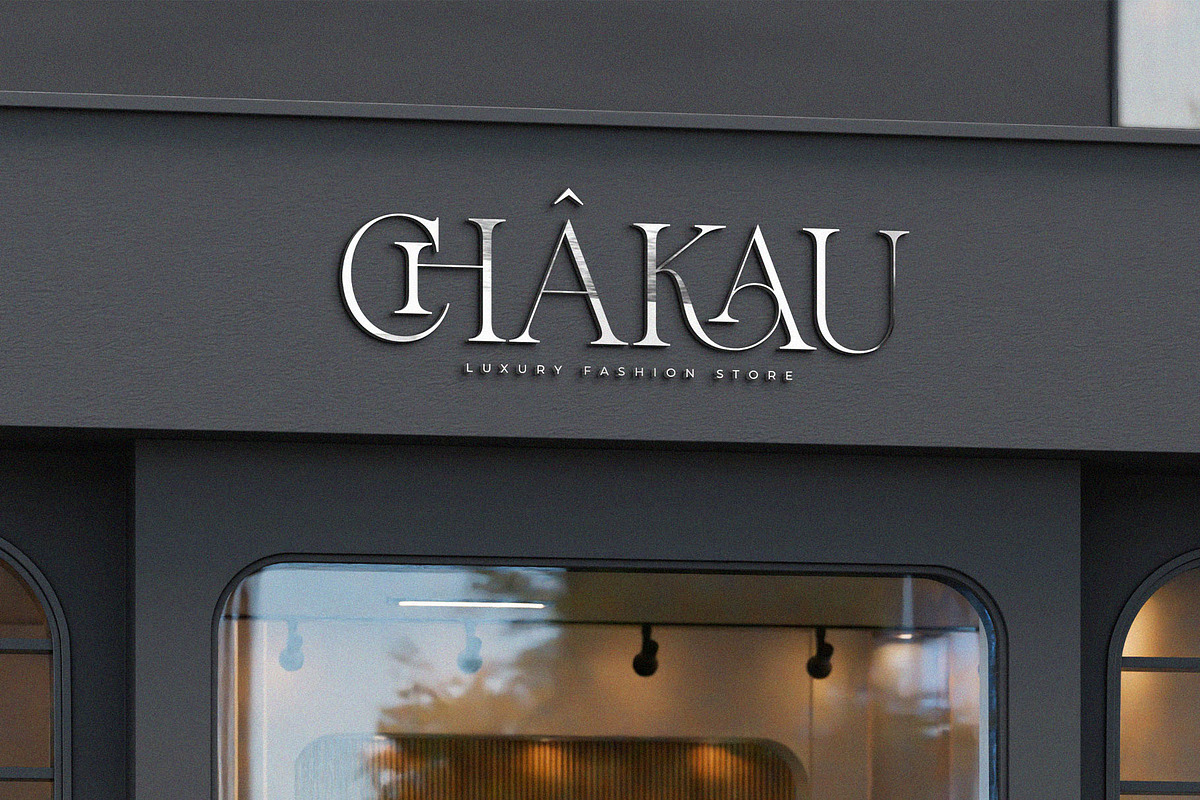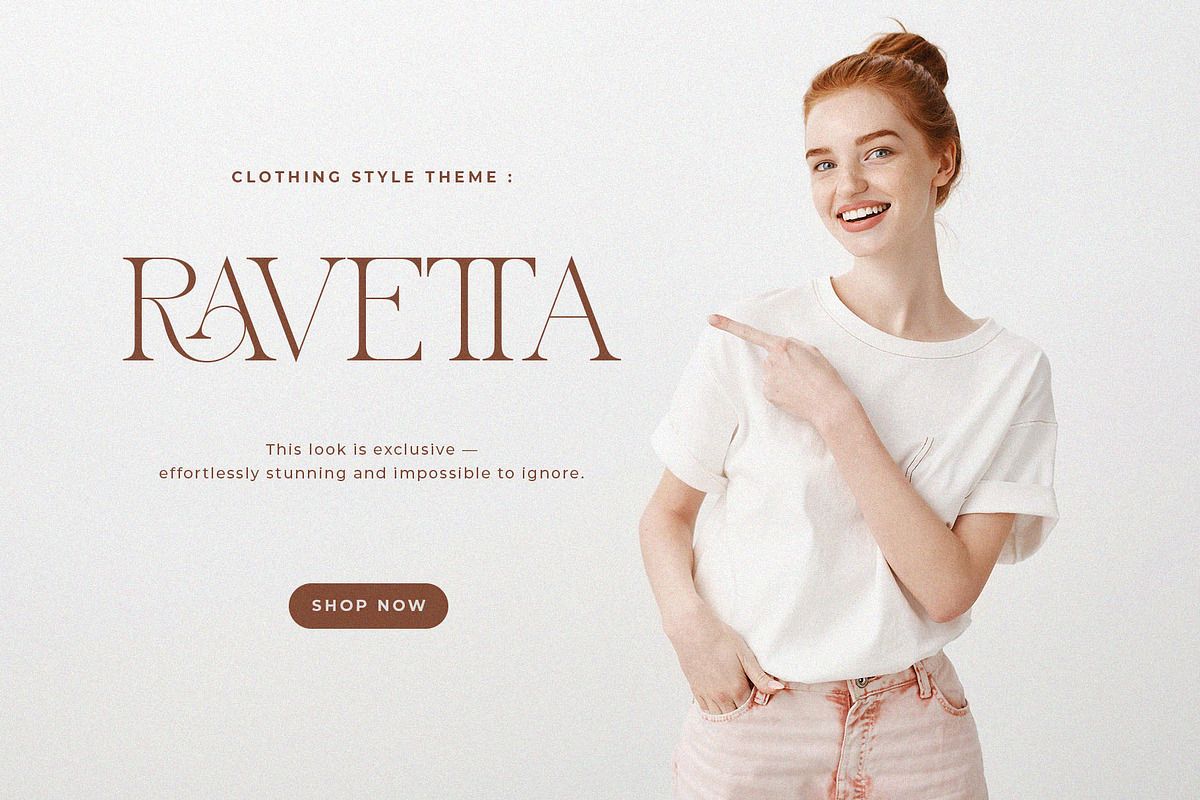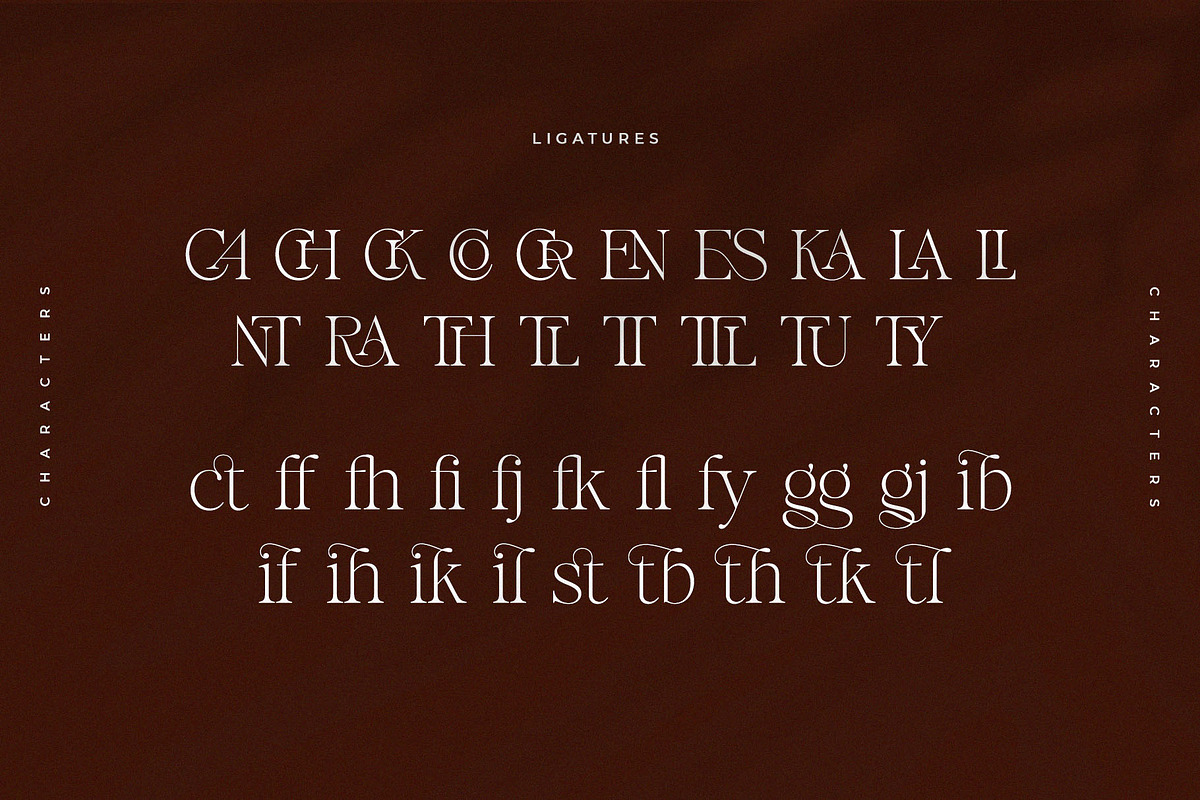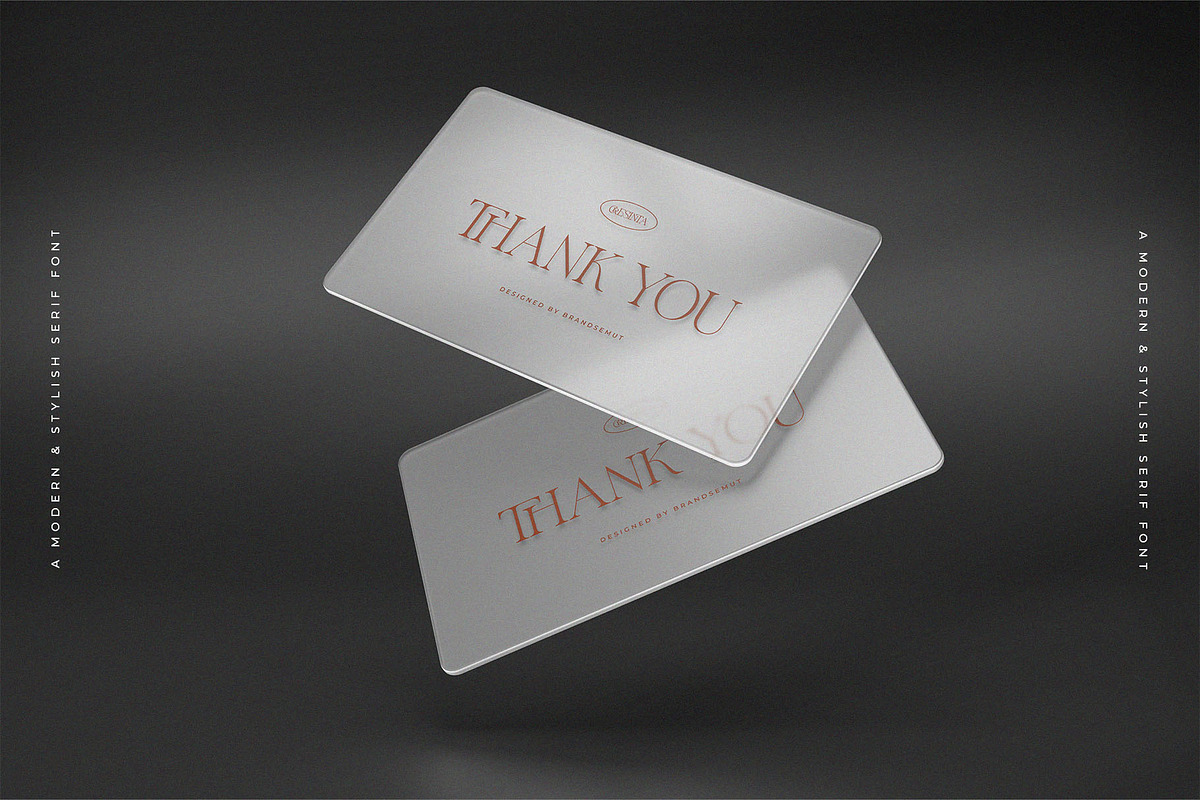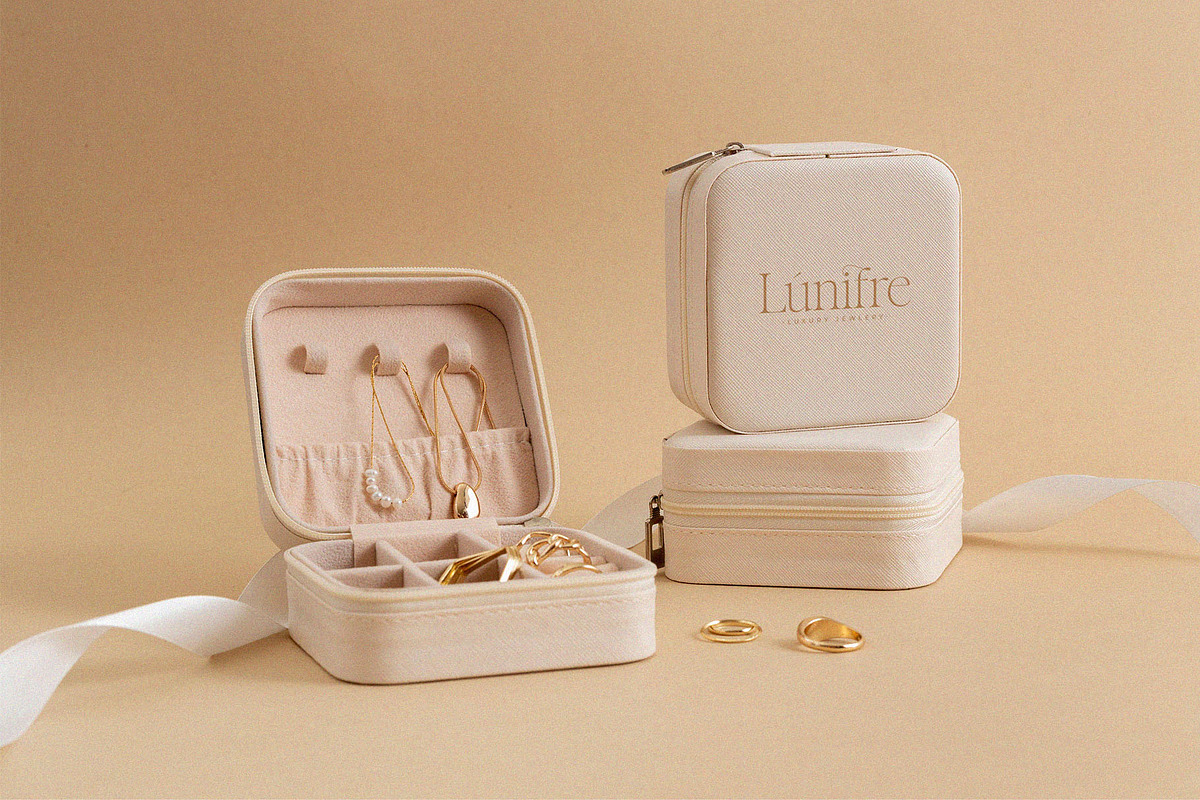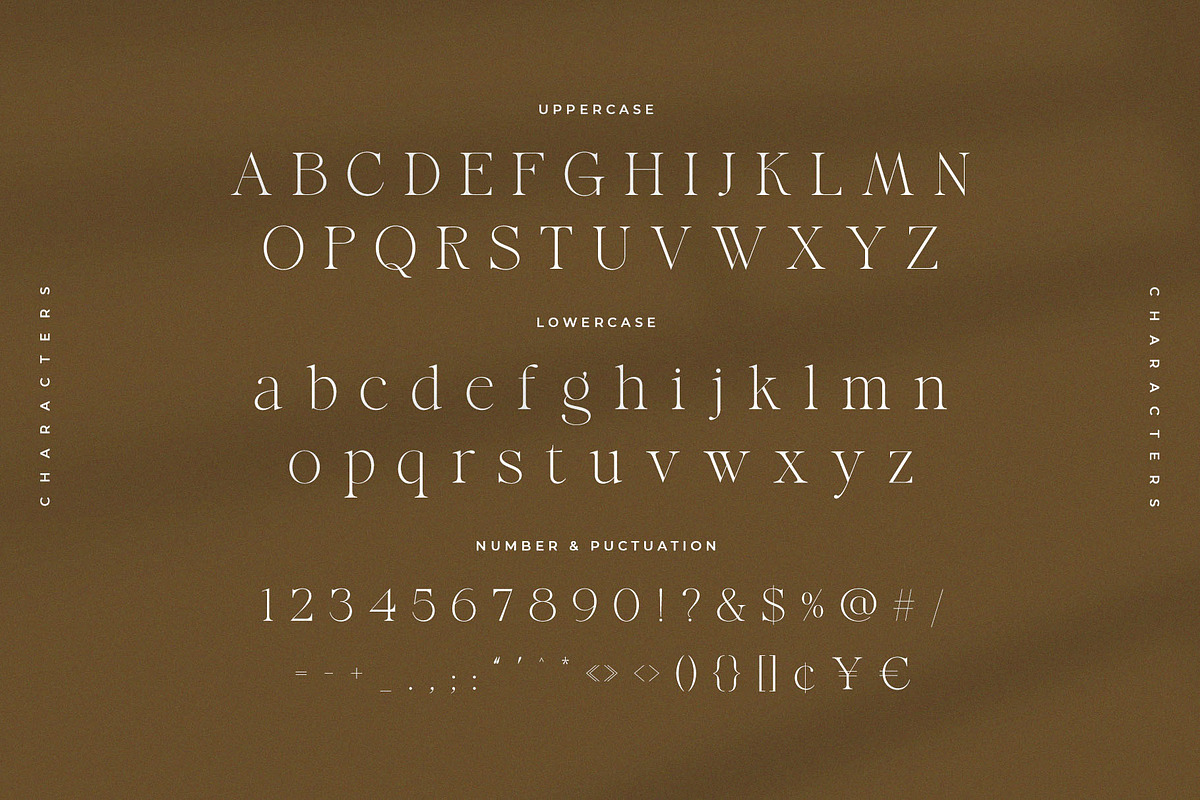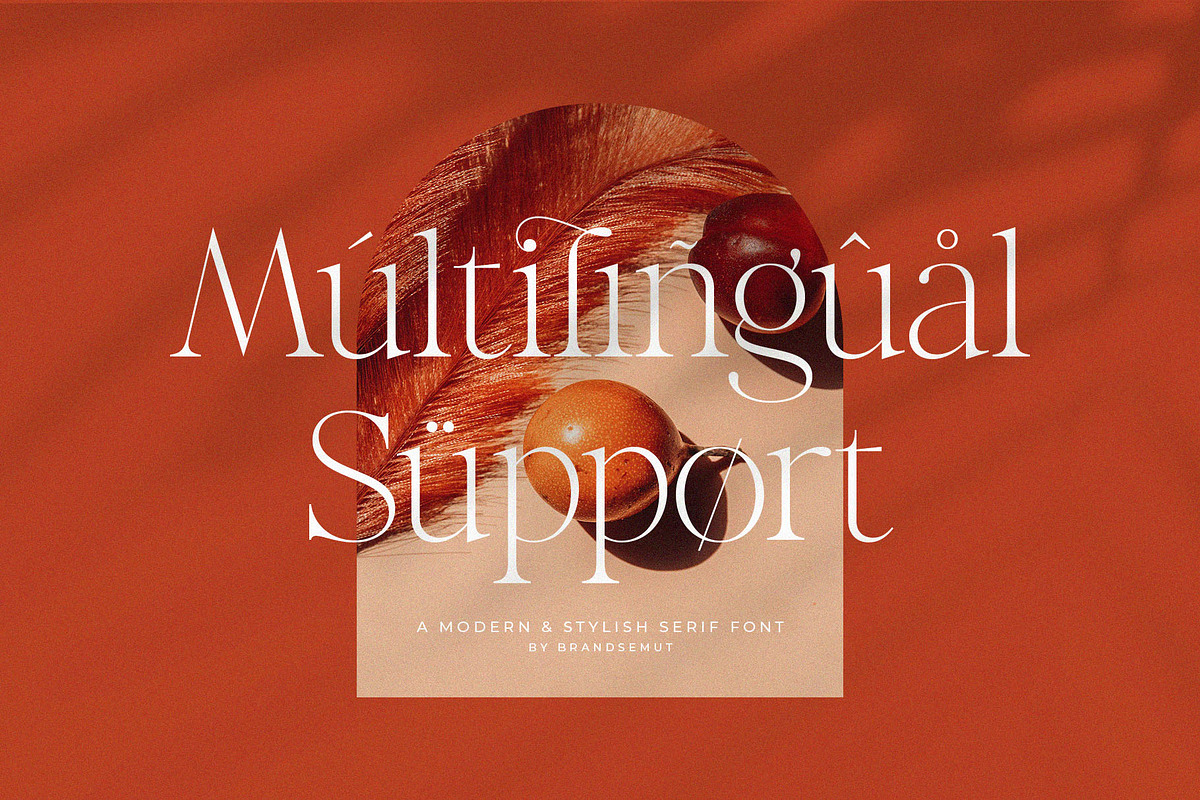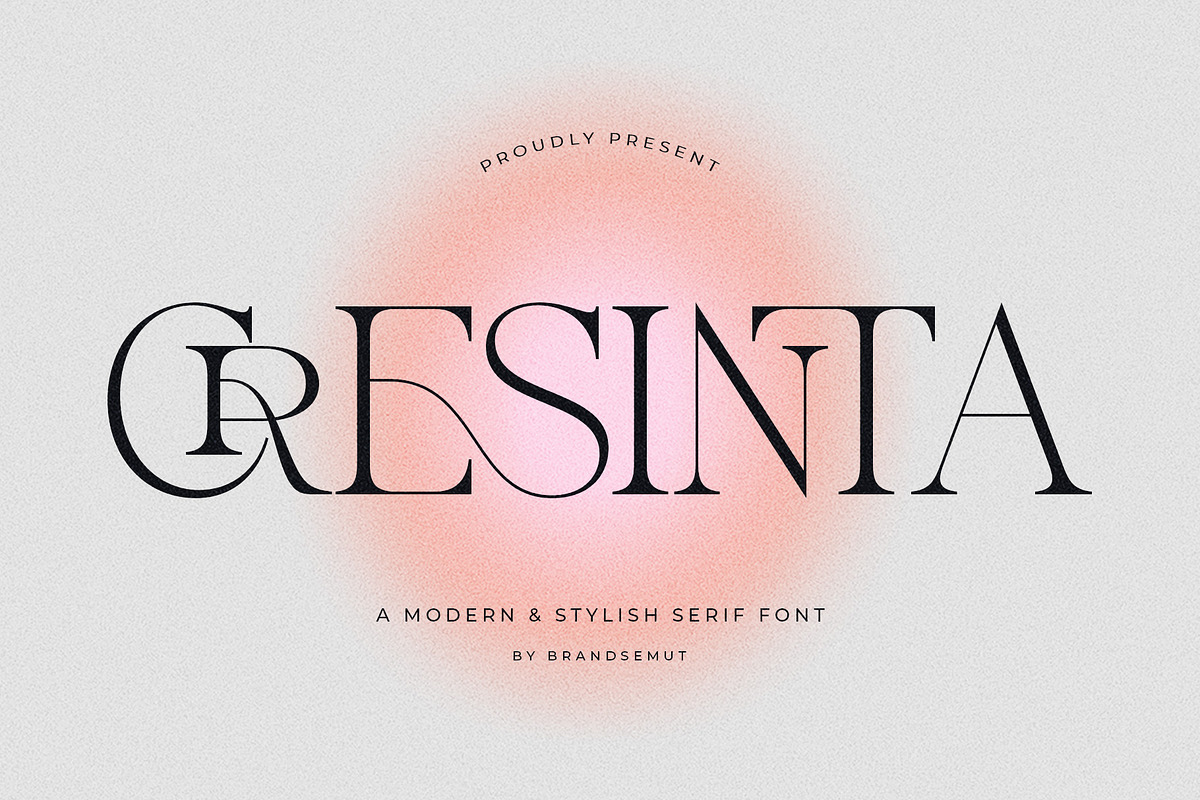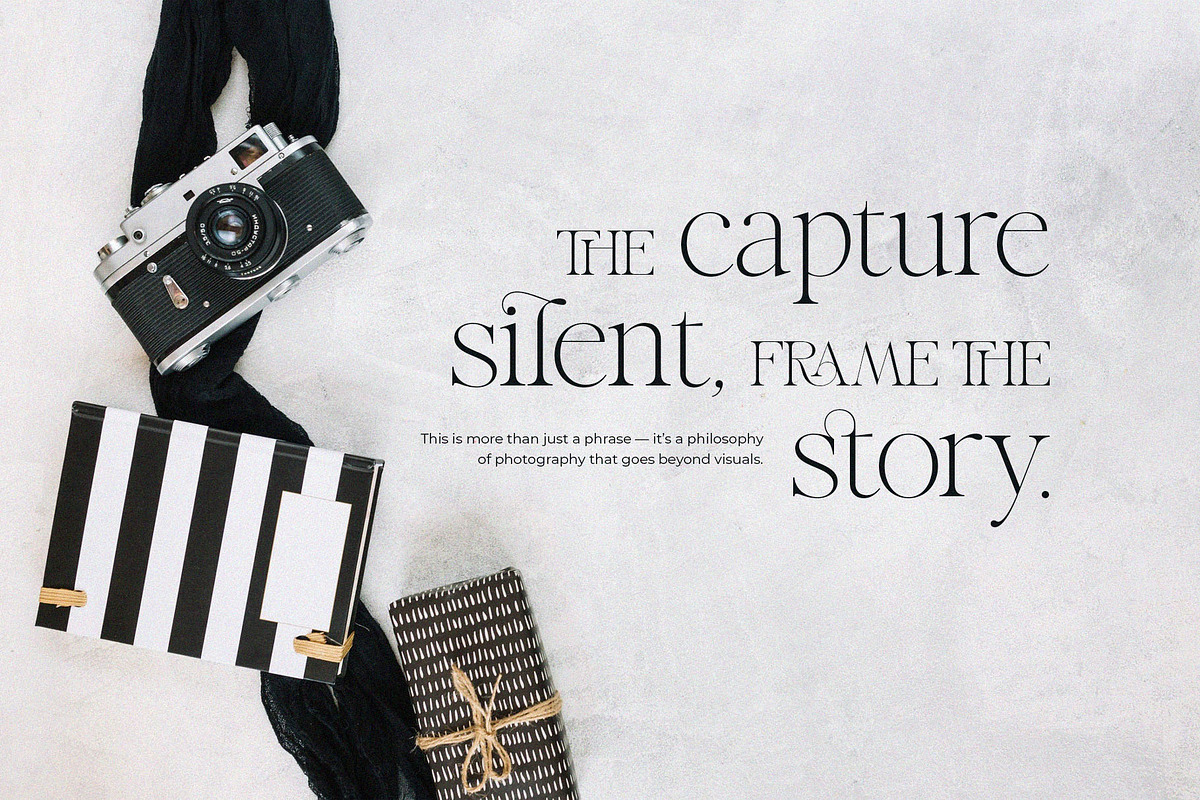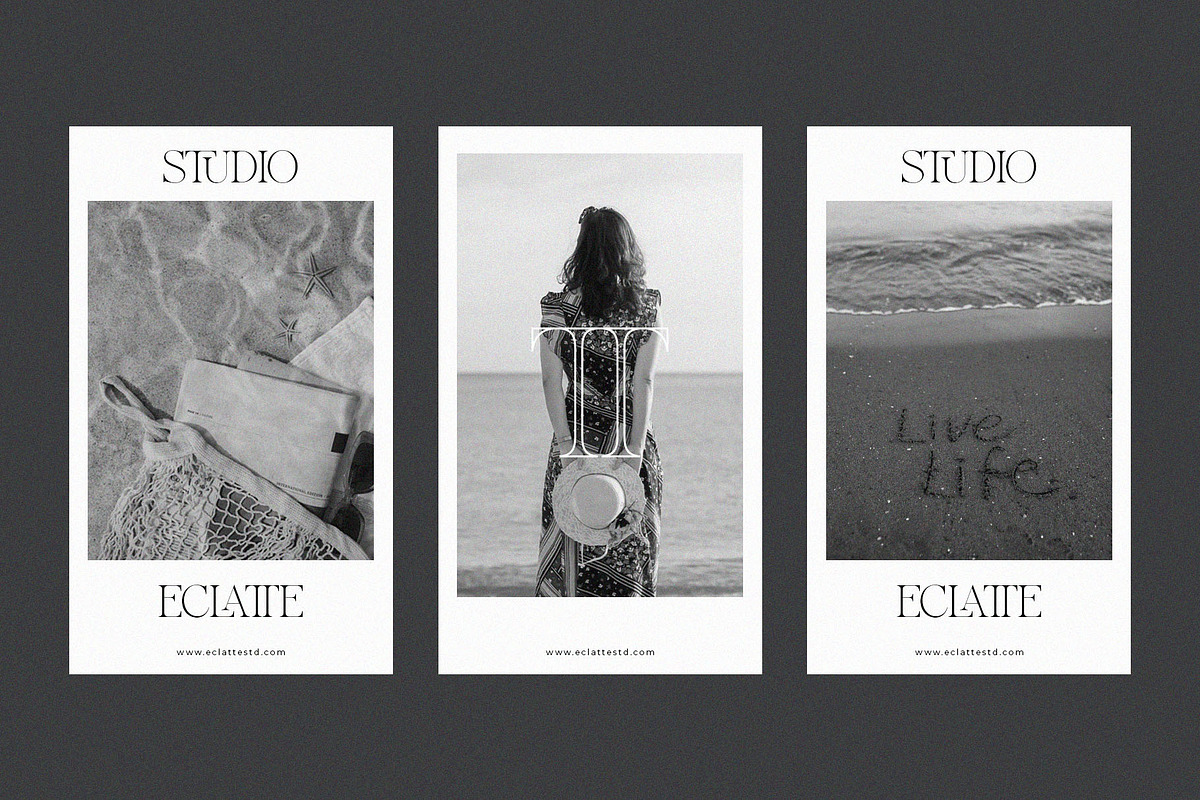
Cresinta – Modern & Stylish Serif
Cresinta – Modern & Stylish Serif Font
Cresinta is a modern and stylish serif font that blends elegance, creativity, and timeless beauty into one sophisticated typeface. With its refined curves, high-contrast strokes, and unique ligature details, Cresinta is the perfect choice for projects that demand a luxurious and professional typographic style.
Inspired by editorial design and high-fashion branding, Cresinta stands out as a versatile serif font that works beautifully for both print and digital media. Whether you’re creating a logo, a magazine headline, a wedding invitation, or a product package, Cresinta delivers a bold yet graceful look that elevates your design.
- Complete uppercase & lowercase letters
- Numerals, punctuation, and multilingual support
- Stylish ligatures & alternates for creative typography
- Luxury Branding & Logos – Fashion, cosmetics, jewelry, boutique, and premium businesses.
- Editorial & Print Design – Magazines, book covers, advertising, and headlines.
- Packaging Projects – Elegant product packaging for cosmetics, perfume, or gourmet goods.
- Wedding & Event Stationery – Invitations, save-the-date cards, and elegant signage.
- Digital Design & Social Media – Website headers, Instagram posts, and marketing visuals.
- Modern Elegance – A serif font that combines contemporary style with timeless beauty.
- Creative Ligatures & Alternates – Add unique flair to your designs with refined details.
- Professional Quality – Designed with balance, readability, and artistic finesse.
Cresinta is more than just a font—it’s a statement of class, style, and modern sophistication. Perfect for designers and brands who want to make a lasting impression.